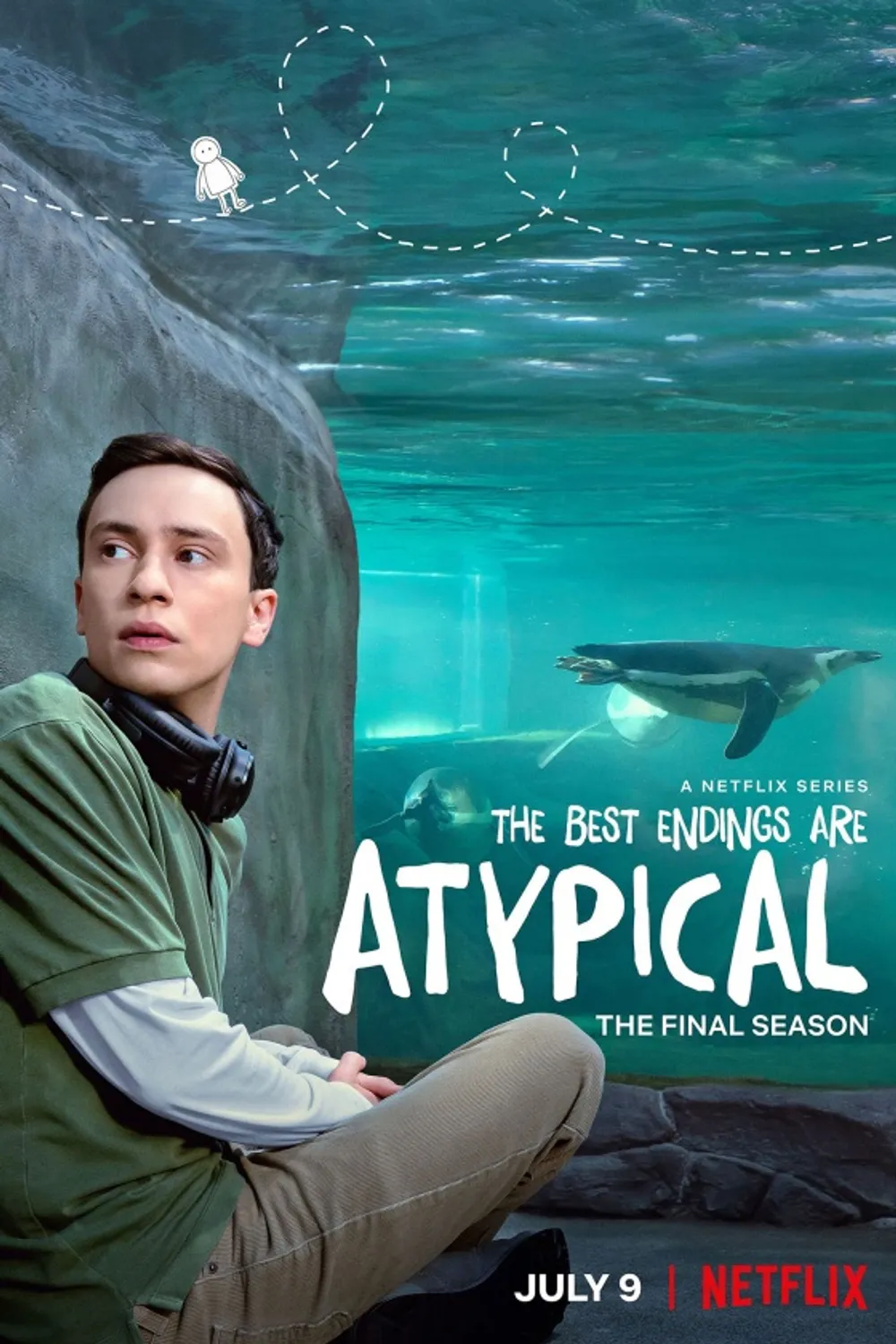
Fonts in Use: Daft Brush
Atypical
Daft Brush font is used in posters and title credits for seasons 1, 2, 3 and 4 of the television series Atypical, produced for Netflix by Sony Pictures Television.